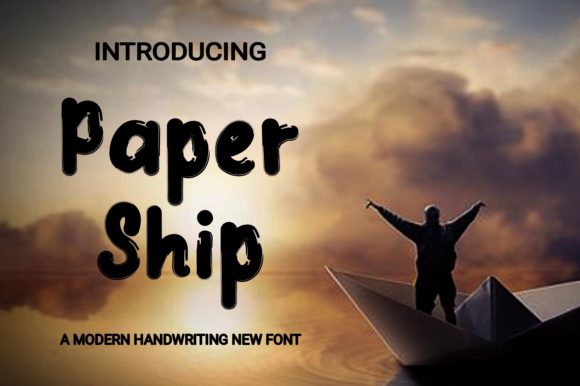
Embark on a voyage of creativity with Paper Ship Font, the charming display font designed to captivate your imagination. Dive into a world of limitless possibilities, where your artistic vision takes center stage. Let Paper Ship carry your ideas to new horizons, transforming them into breathtaking works of art.
Express yourself with a font that embodies playfulness and individuality. Its whimsical strokes and cheerful curves dance across the page, adding a touch of delight to your designs. Whether you're crafting logos, headings, or even creating your own t-shirts, Paper Ship is your perfect companion.
Step into a world of versatility and let your creativity soar. Paper Ship is the ultimate chameleon, adapting seamlessly to a myriad of projects and styles. From the elegant strokes of letterhead to the bold statements of signage, this font commands attention wherever it goes.
Make a lasting impression with Paper Ship, whether you're designing posters, badges, or even news articles. Its unique character adds a touch of intrigue, captivating your audience from the very first glimpse. Join the creative journey and let Paper Ship guide you towards masterpieces that leave a lasting impact.
Don't just take our word for it - embark on your own Paper Ship adventure and witness the magic unfold. Let your imagination set sail and see how this extraordinary font transforms your creative visions into unforgettable realities. Paper Ship is not just a font - it's an invitation to a world of endless possibilities. Accept the invitation and let your creativity take flight.